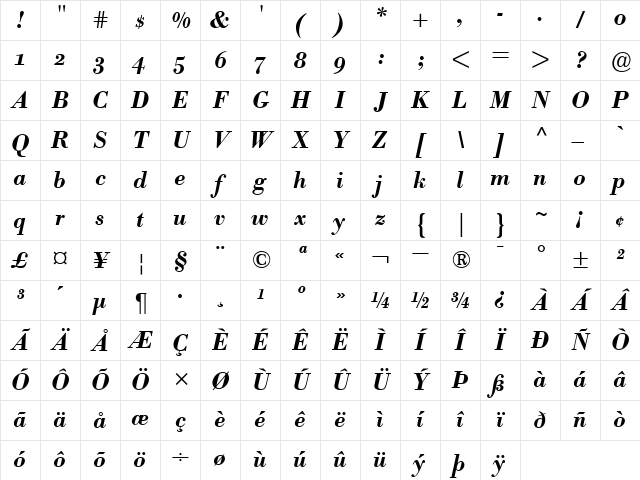
Complete BodoniBEOldstyleFigures-Medium MediumItalic glyph index. Displaying only characters natively supported by BodoniBEOldstyleFigures-Medium MediumItalic font.
BodoniBEOldstyleFigures-Medium carries the refined structure of traditional serif typography, with bracketed terminals and considered proportions that communicate credibility and craft. The slanted form adds forward momentum and visual energy.